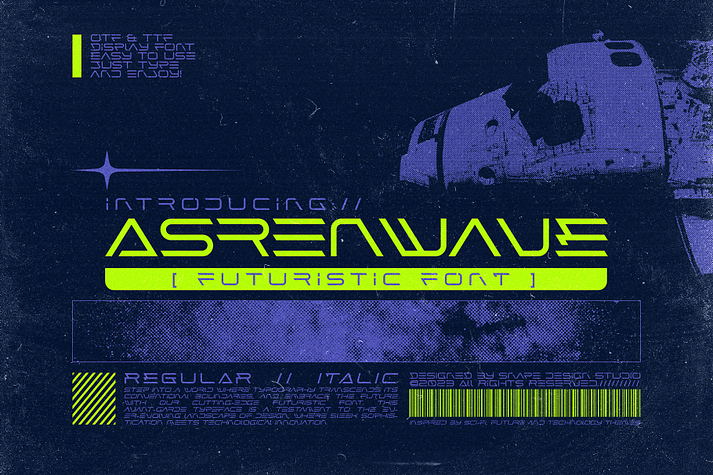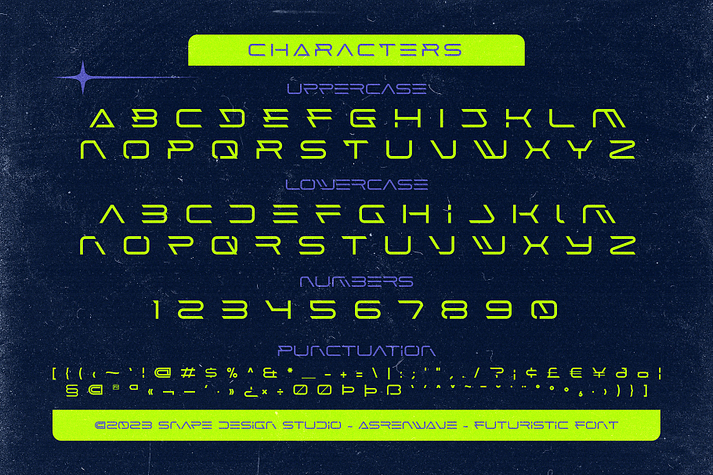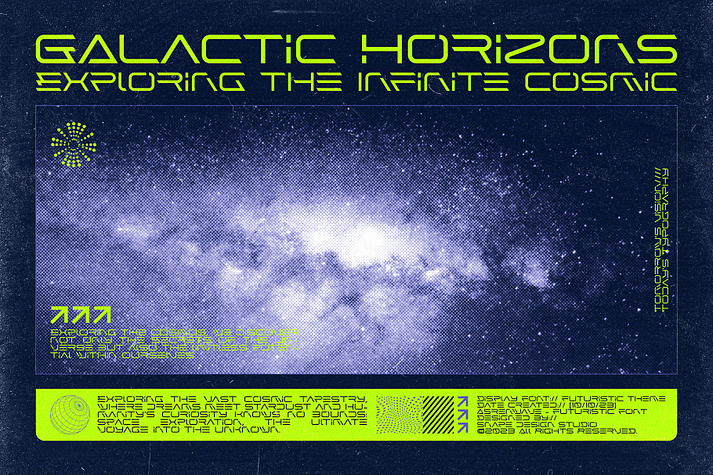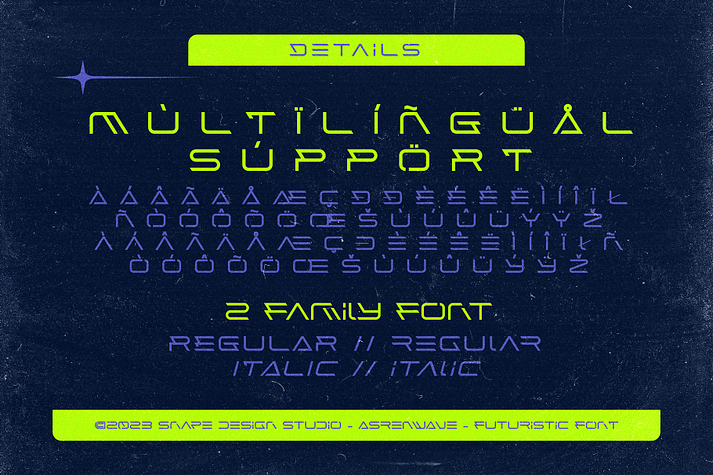
Asrenwave
Asrenwave is a display sans font family. This typeface has two styles and was published by Snape Design Studio.
Introducing our Futuristic Font product – where innovation meets aesthetics in the realm of typography. This cutting-edge collection of fonts redefines the future of design, offering sleek, dynamic, and visually striking characters that seamlessly blend technology and artistry. Perfect for sci-fi themes, tech branding, or any project that demands a modern edge, these fonts empower creativity with their versatility and user-friendly customization options. Elevate your designs to the next level and embrace the future of typography with our Futuristic Font product.
FEATURES : Uppercase Lowercase Number Punctuation Multilingual
FAMILY FONT : Regular Italic